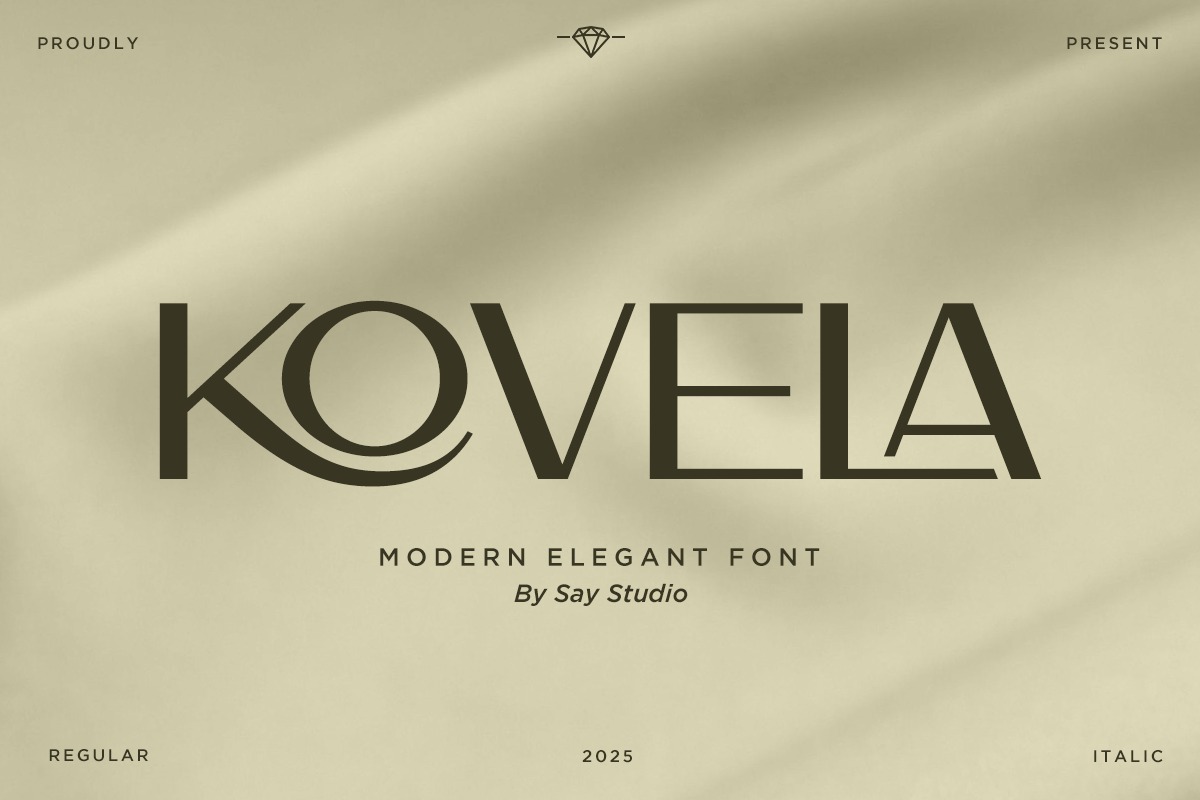
Kovela – Modern Elegant Font
Kovela – Modern Elegant Font is a flexible and reliable font created to fit multiple design needs, from branding and packaging to social media and editorial layouts. Kovela is a modern elegant font that blends minimalist sophistication with refined luxury. Featuring graceful ligatures, stylish alternates, and balanced geometric forms, Kovela creates a clean yet distinctive visual identity that feels timeless across both digital and print applications. Its contemporary aesthetic is designed to help brands communicate confidence, elegance, and premium quality.